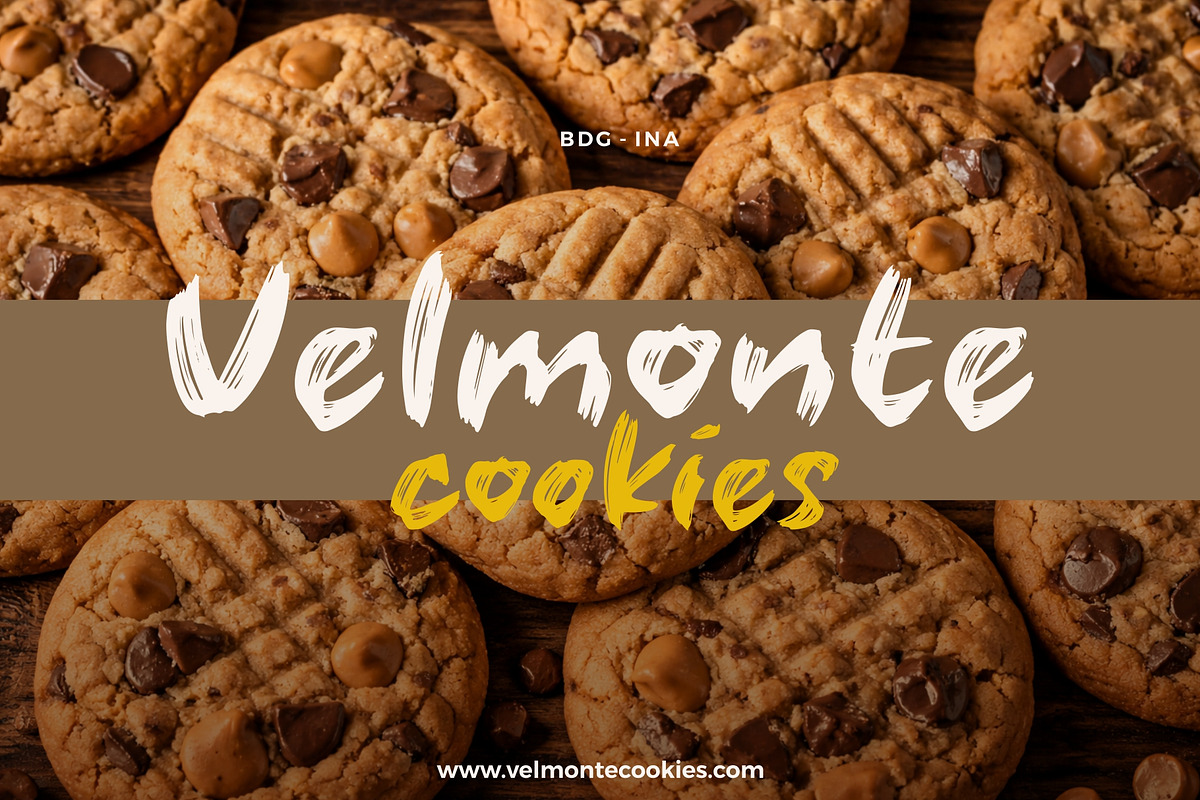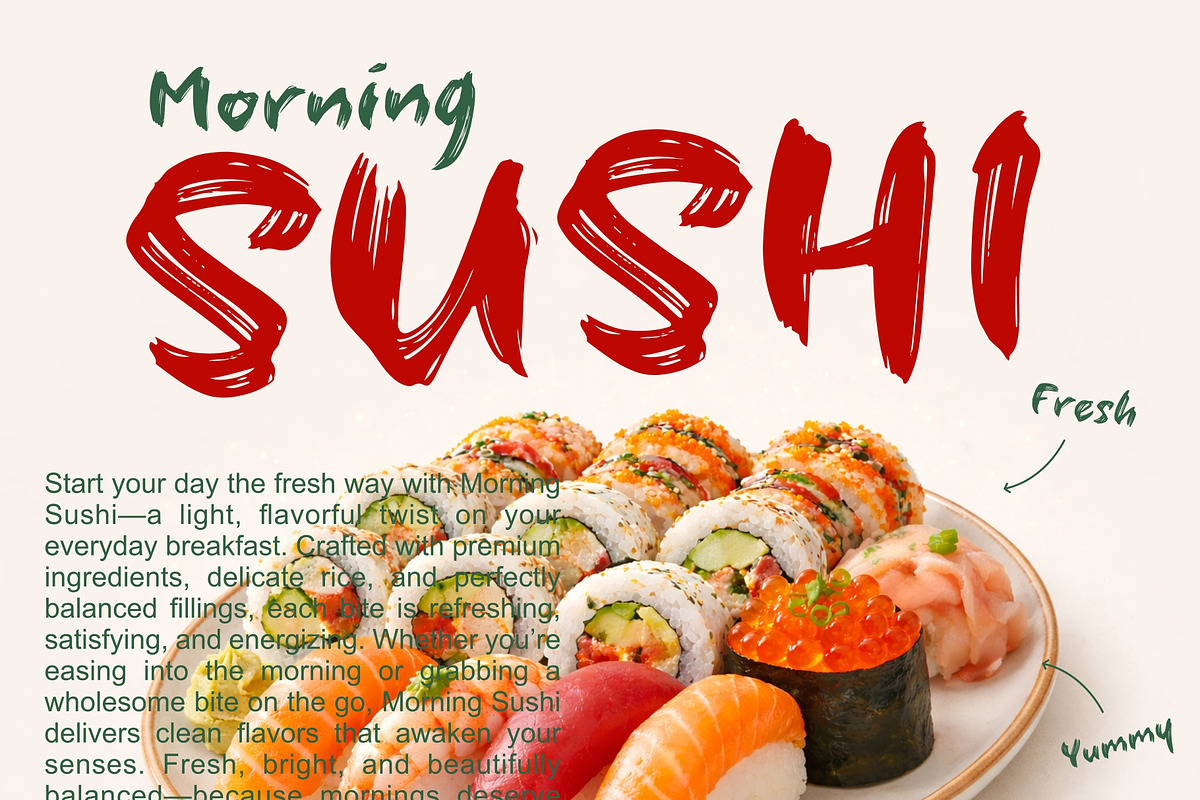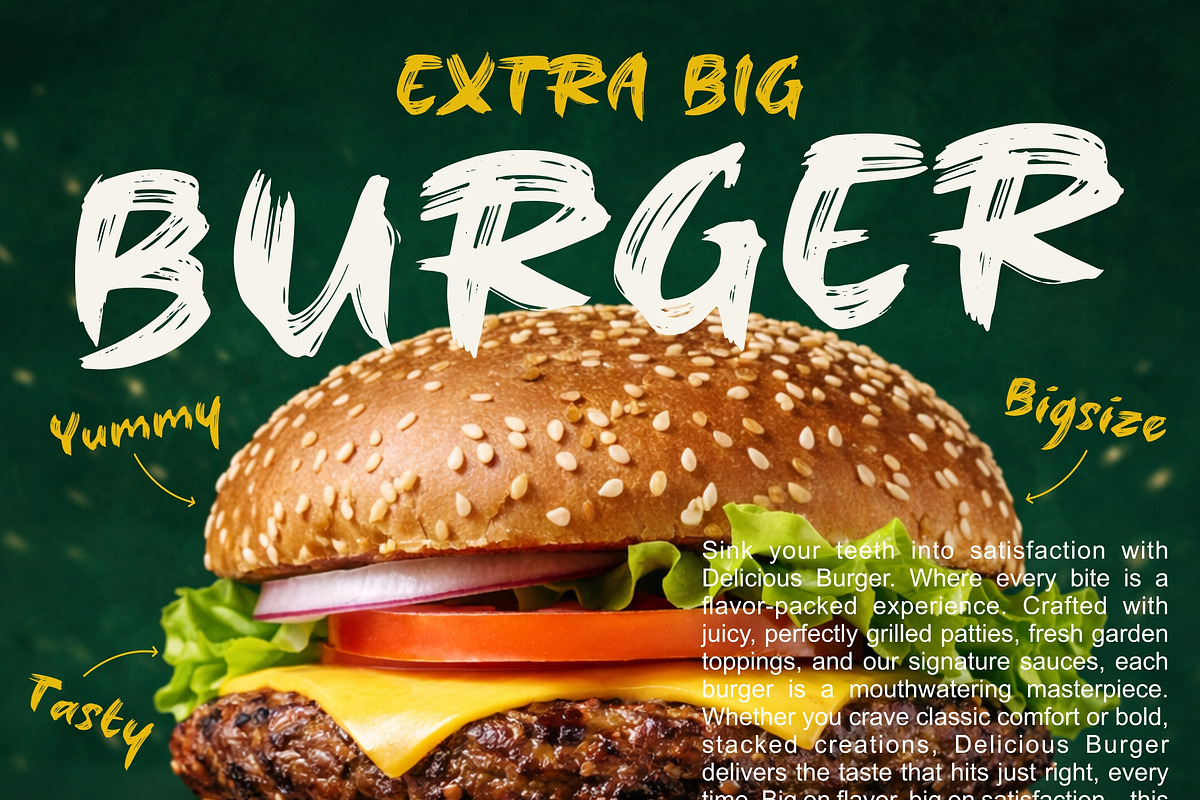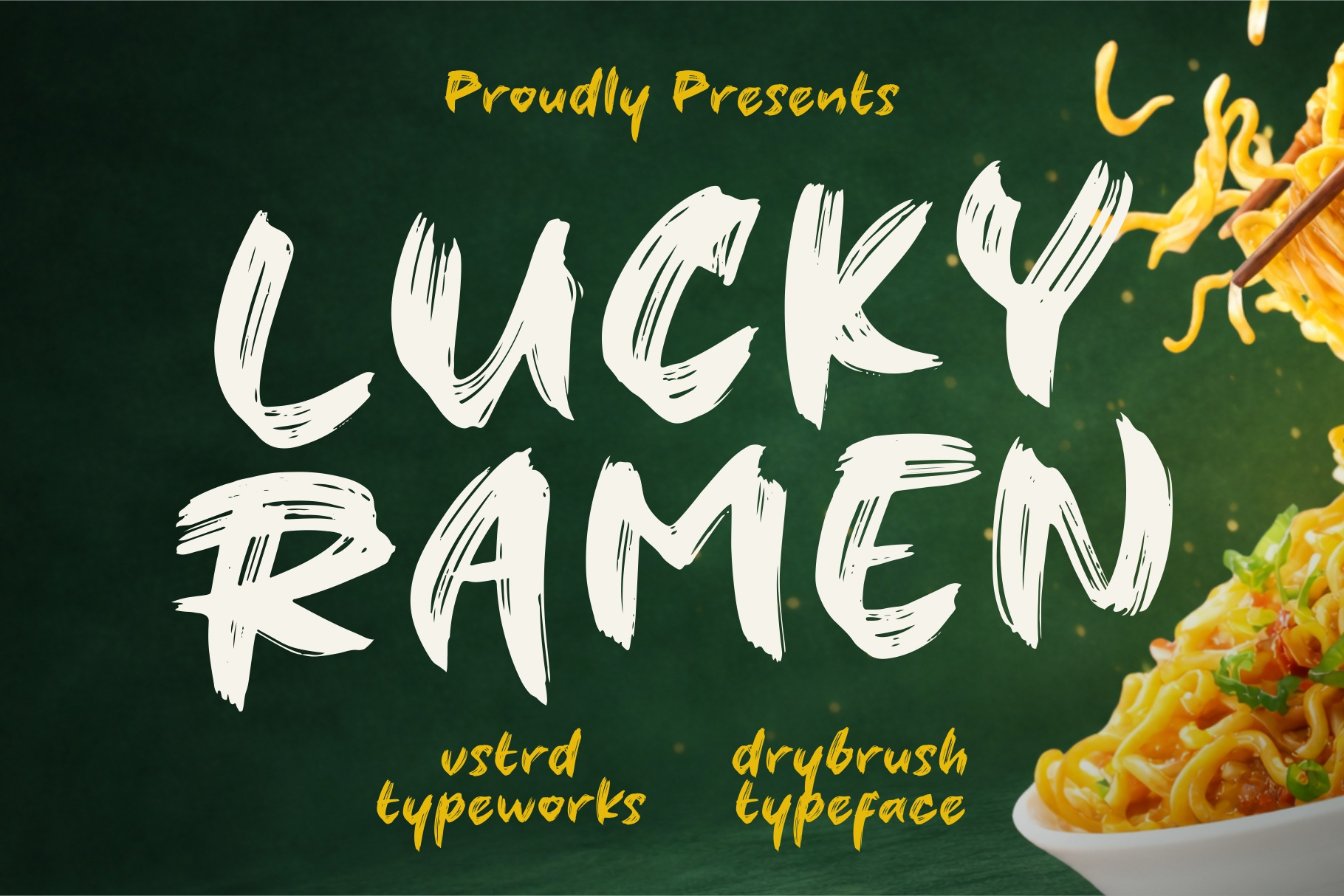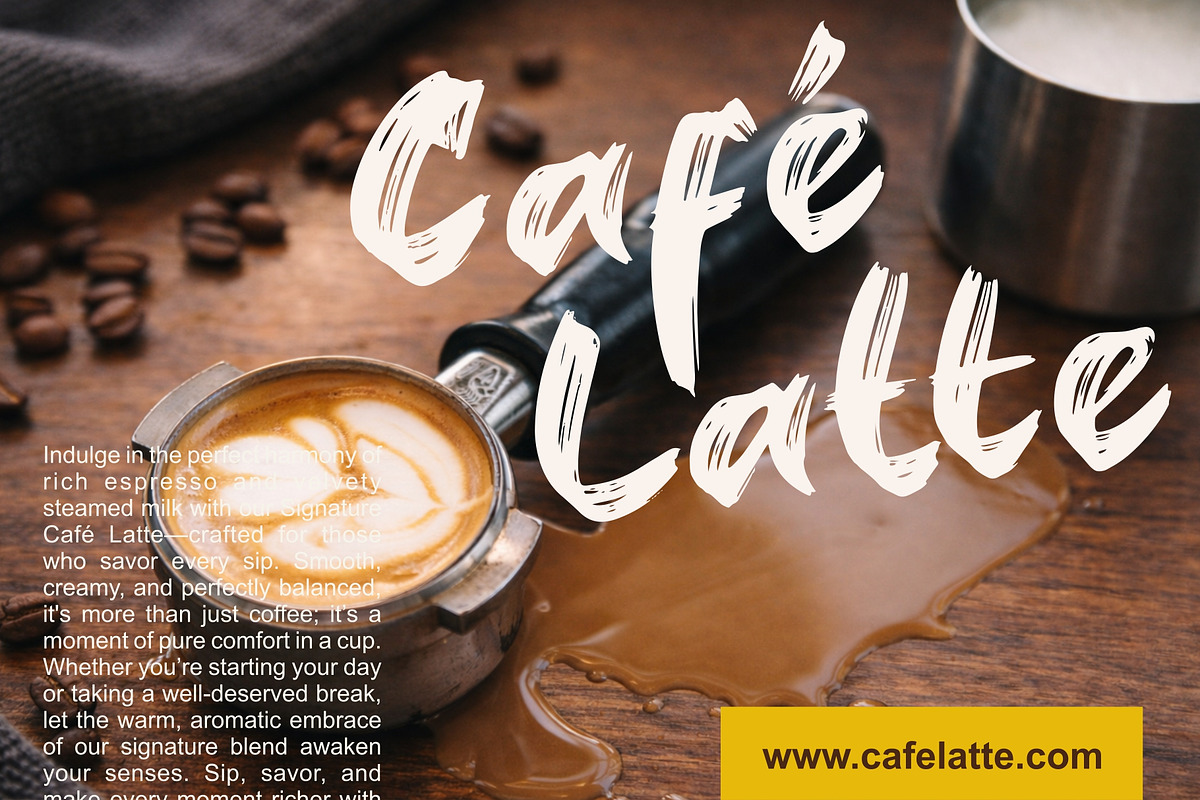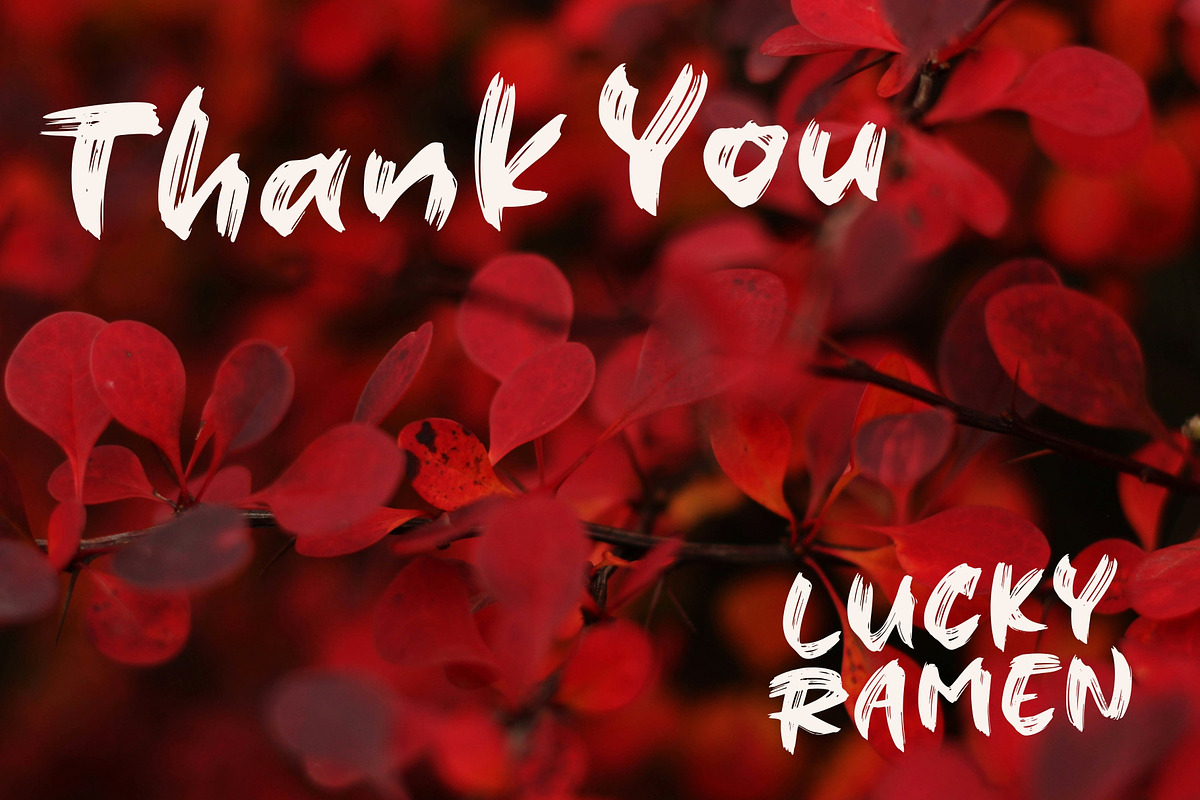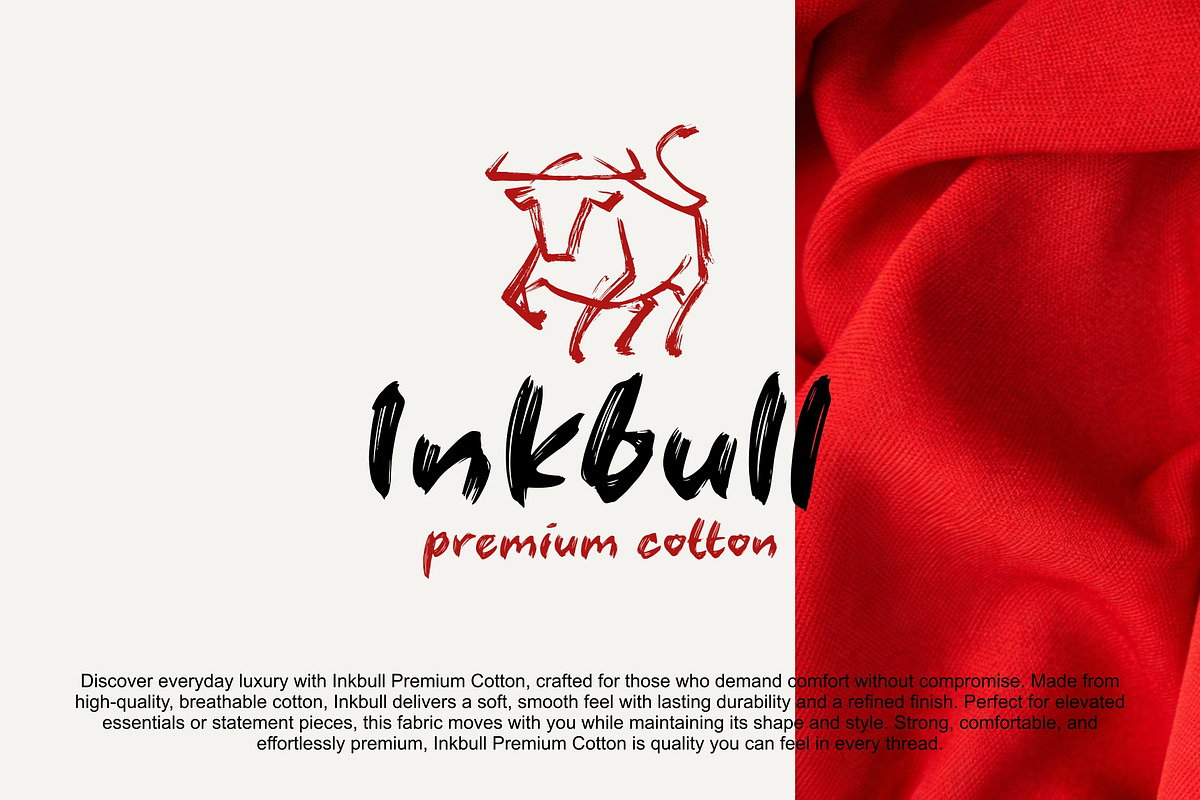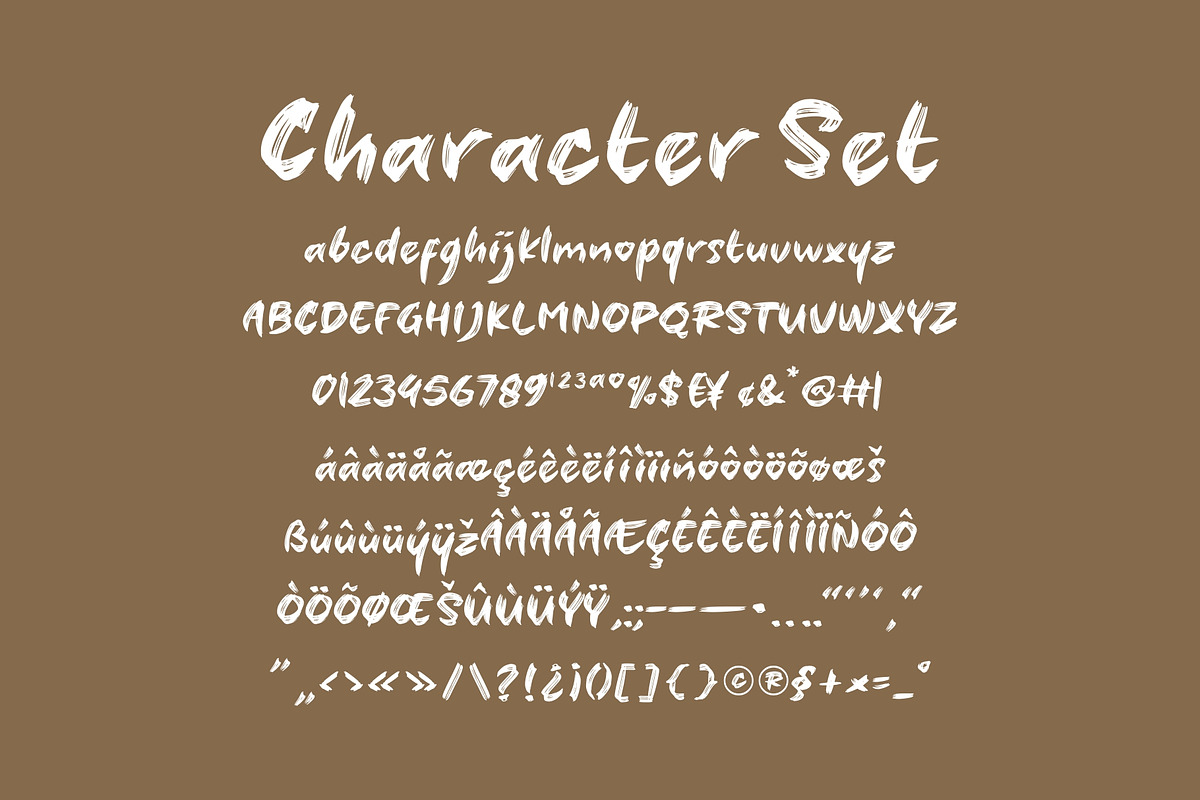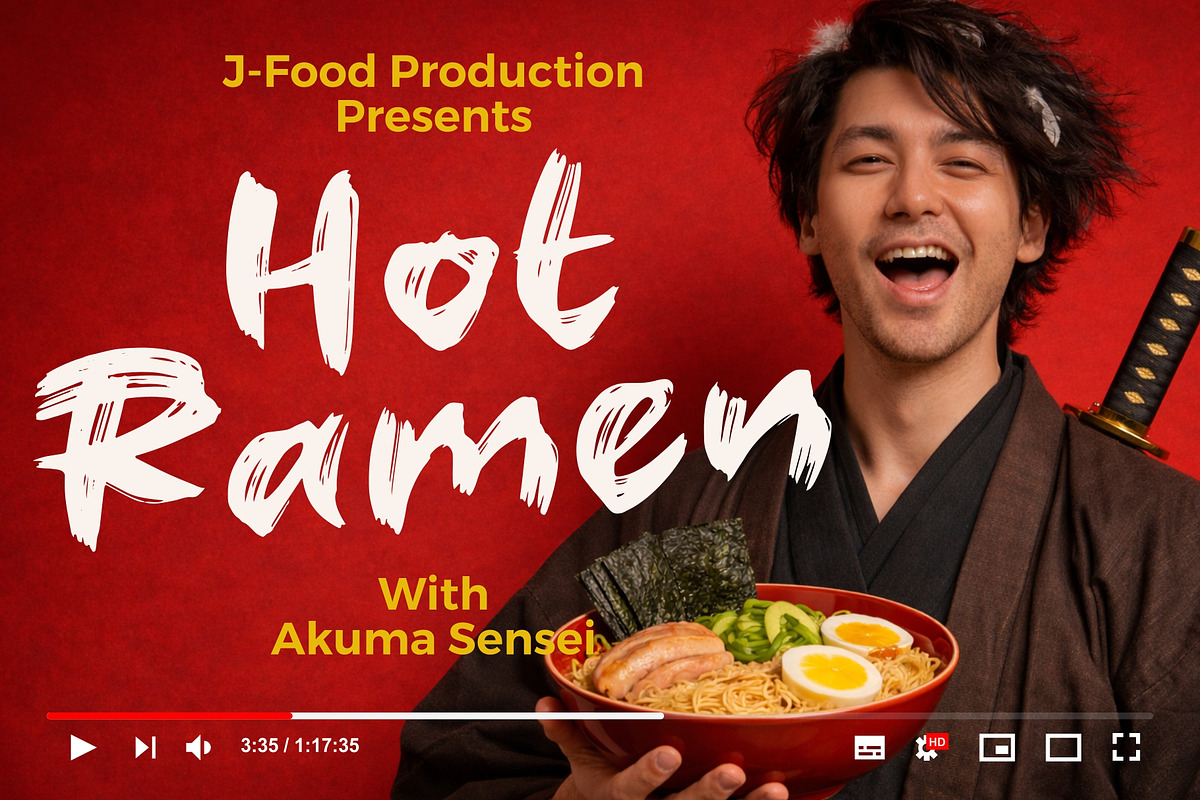
LUCKY RAMEN - Dry Brush Font
Bring energy and attitude to your designs with LUCKY RAMEN, a powerful brush font crafted from natural, hand brush strokes. With its raw, and expressive strokes, this font is perfect for projects that demand a powerful, rebellious edge.
Ideal for logos, Japanese Themed Campaign, food & beverage branding, promotional campaigns, video titles, product packaging, quotes, posters, flyers, and eye-catching text overlays, LUCKY RAMEN adds a handcrafted, urban feel to any design.
- Perfect for high-impact branding and statement typography
- Versatile for both digital and print projects
- Adds an edgy, Japanese vibe to your designs
Make a statement with LUCKY RAMEN – where powerful strokes meet fearless creativity!
- All Caps Uppercase & Lowercase